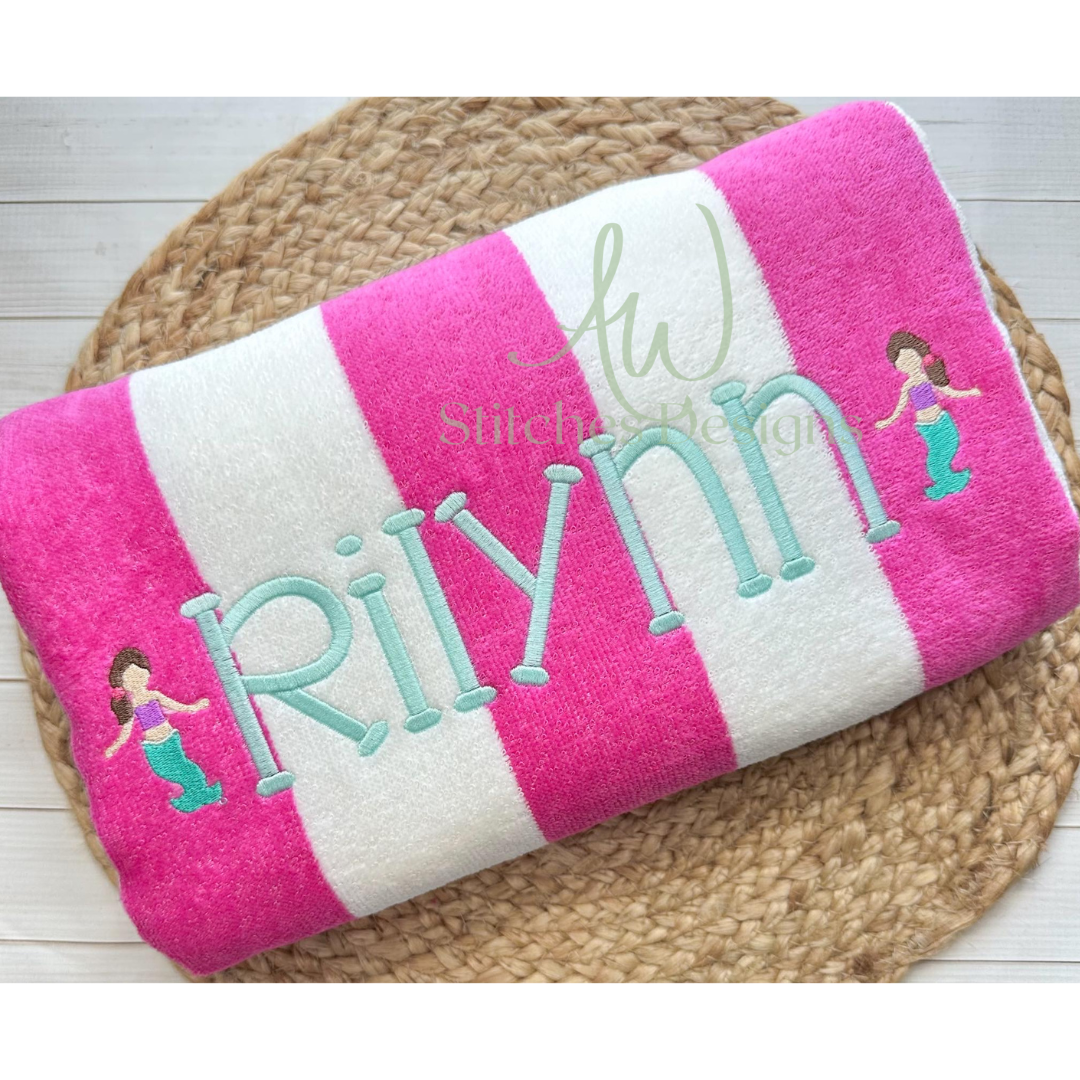
The Playful Print Satin Font
Introducing the Playful Print Satin Embroidery Font – your go-to font for adding a fun, bold touch to your embroidery projects! This satin stitch font includes both uppercase and lowercase letters, sized from 1" to 2.5", making it versatile for all your creative needs. Whether you're personalizing clothing, home décor, or accessories, the smooth satin finish ensures a polished look every time.
This font includes:
-26 lower and upper case letters A through Z
This font comes in FOUR different sizes:
1 inch
1.5 inch
2 inch
2.5 inch